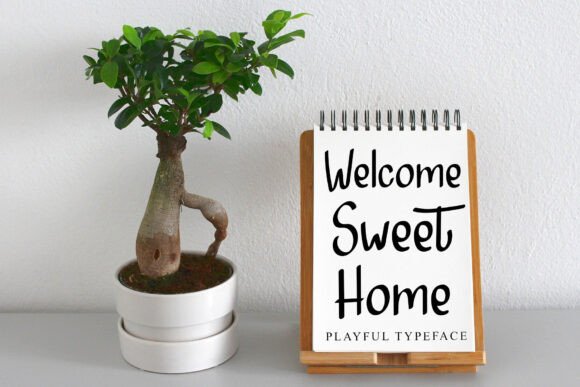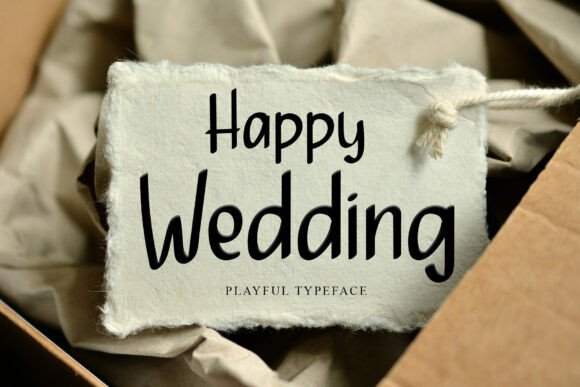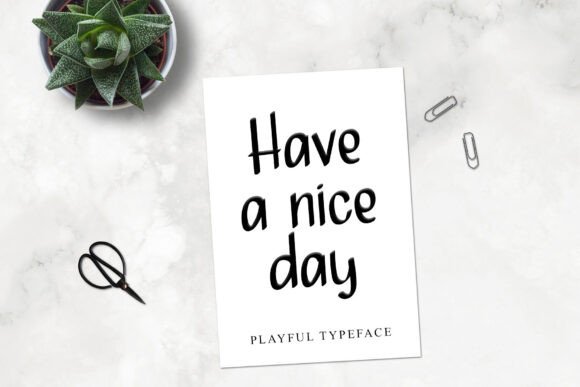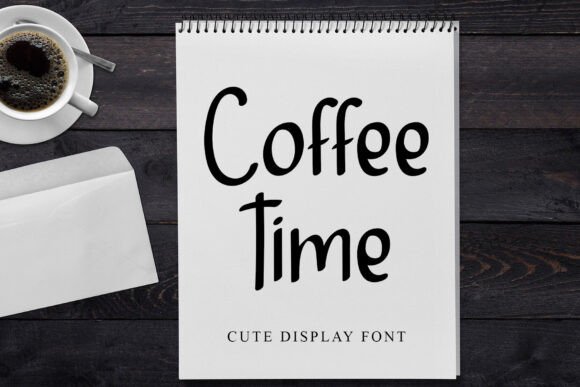
The Timeless Charm of Atlantik Font: A Designer’s Delight
I’ll never forget the time I was working on a branding project for a luxury hotel, and I was struggling to find the perfect font to capture the essence of their sophisticated yet approachable vibe. That’s when I stumbled upon Atlantik Font, and it instantly became my go-to choice. In this article, I’ll share my love for this beautiful handwritten font, its features, and how to make the most of it in your designs.
An Honest Review of Atlantik Font
- ✨ Unique and beautiful touch: Every letter in Atlantik Font has a distinct character that adds a personal touch to your designs.
- ✅ Timeless appeal: This font’s classic look makes it suitable for a wide range of projects, from modern branding to vintage-inspired designs.
- 💫 Versatile: Atlantik Font is perfect for creating eye-catching logos, branding materials, quotes, and more.
- 👍 Easy to read: Despite its decorative nature, this font remains highly legible, even at smaller sizes.
While Atlantik Font is an excellent choice for many projects, there are a few things to keep in mind:
- ⚠️ Limited availability of extended language support: If you need to work with languages that require non-standard characters, you might find Atlantik Font limited.
- 🤔 Not ideal for body text: Due to its decorative nature, Atlantik Font is best used for headlines, titles, and short paragraphs rather than lengthy text.
The Story Behind Atlantik Font
Atlantik Font was created with the goal of crafting a timeless, handwritten font that would evoke a sense of sophistication and elegance. The designer drew inspiration from classic calligraphy and modern typography to create a unique and versatile font.
| Font Name | Atlantik Font |
| Author | GiaLetter |
Q: What makes Atlantik Font unique?
A: Atlantik Font’s unique touch lies in its beautiful, handwritten letterforms, which add a personal touch to any design.
Q: Is Atlantik Font suitable for body text?
A: While Atlantik Font is highly legible, it’s best used for headlines, titles, and short paragraphs rather than lengthy body text.